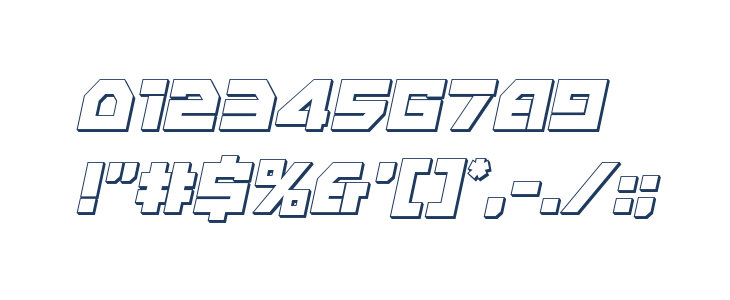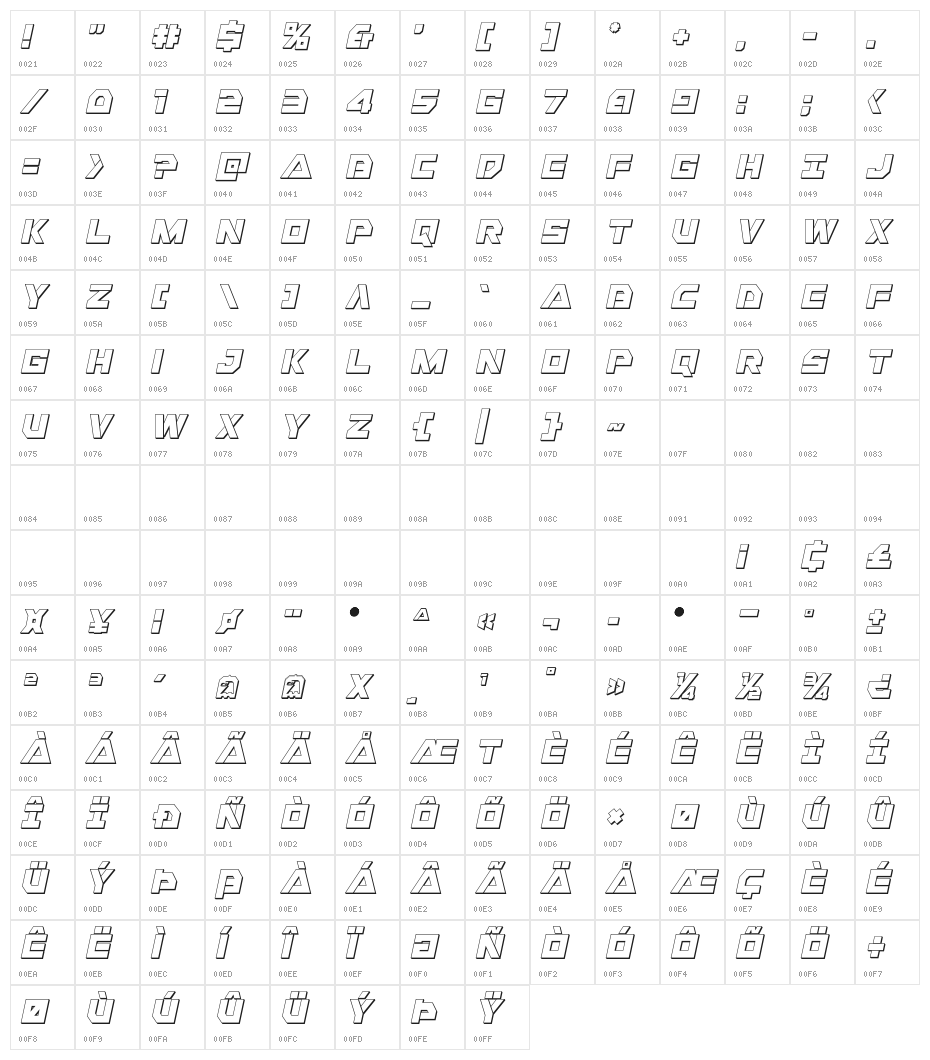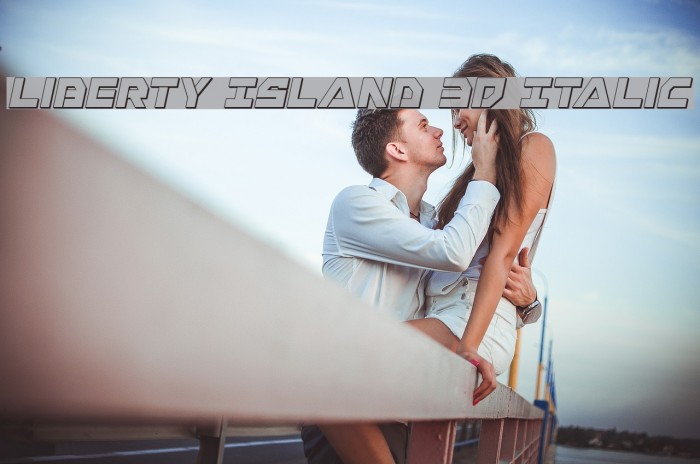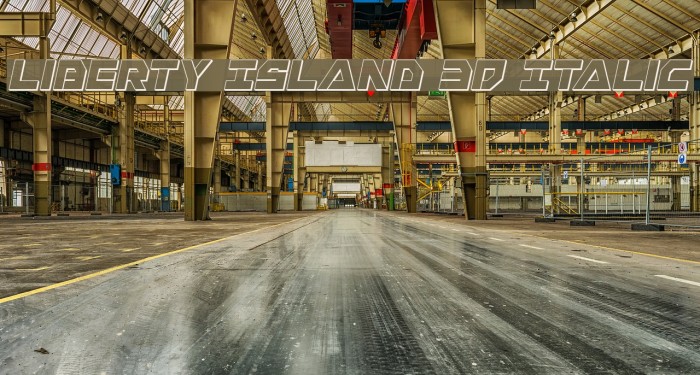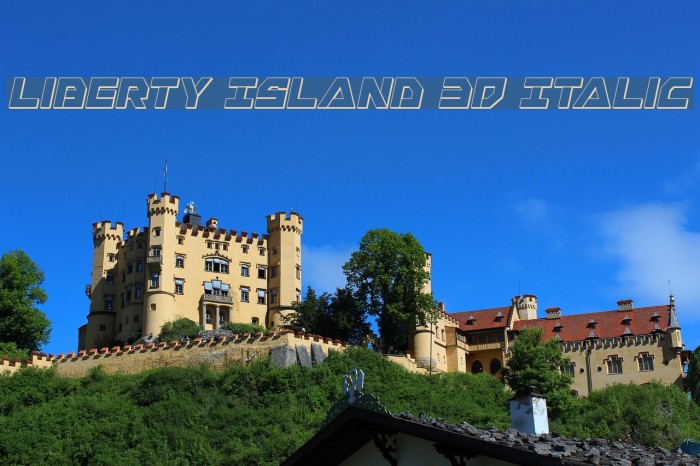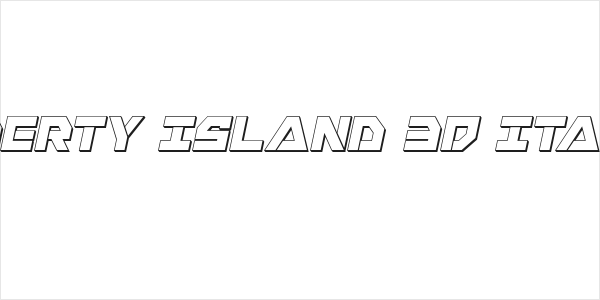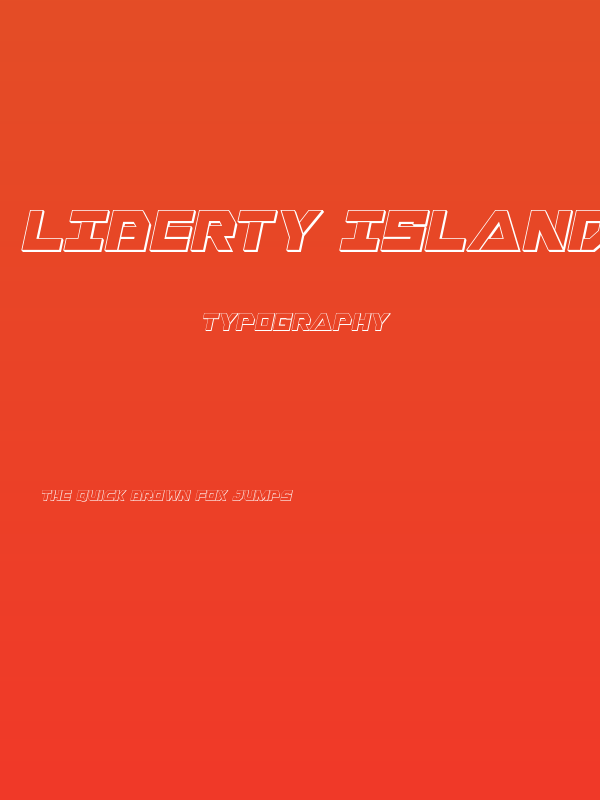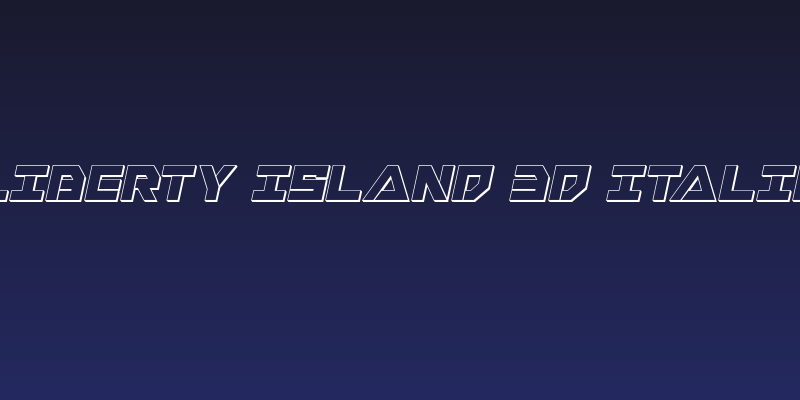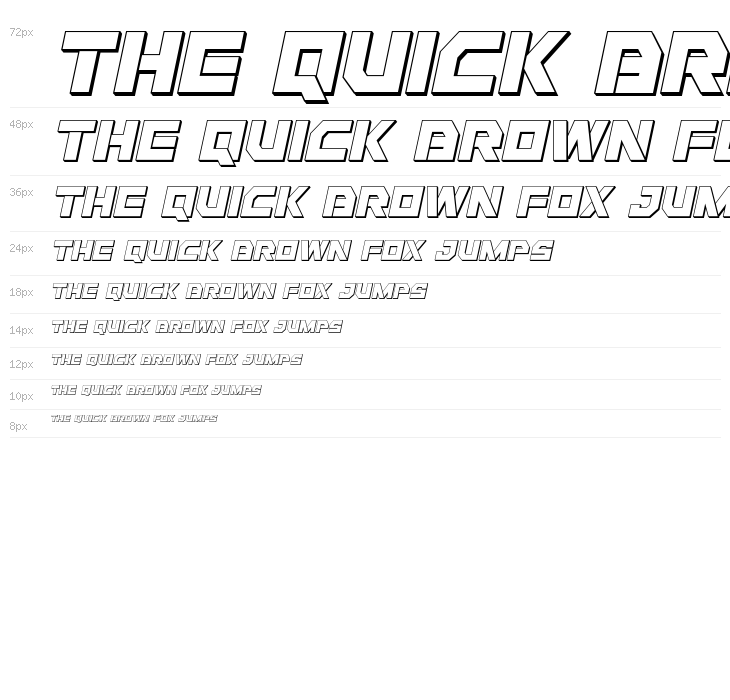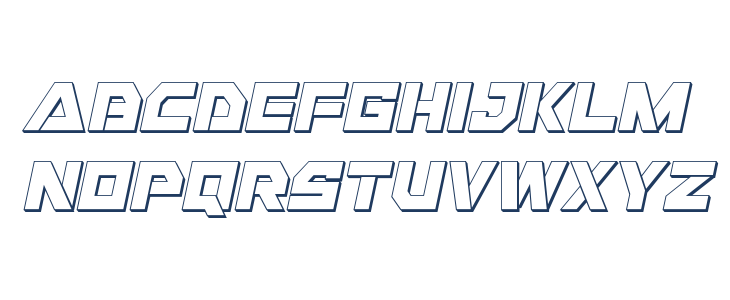
Liberty Island 3D Italic Font
Liberty Island 3D Italic Description
This font features a bold, three-dimensional design with a distinct italic slant, creating a dynamic and futuristic appearance. The characters are outlined, giving them a hollow look that enhances their 3D effect. The geometric shapes and sharp angles contribute to a modern and edgy style, making it stand out in any design. The uppercase and lowercase letters maintain a consistent style, while the numbers and special characters are designed to match the overall aesthetic. This font is ideal for projects that require a strong visual impact.
| Proposed Projects | Ideal for video game titles, sci-fi movie posters, tech branding, and modern advertising. |